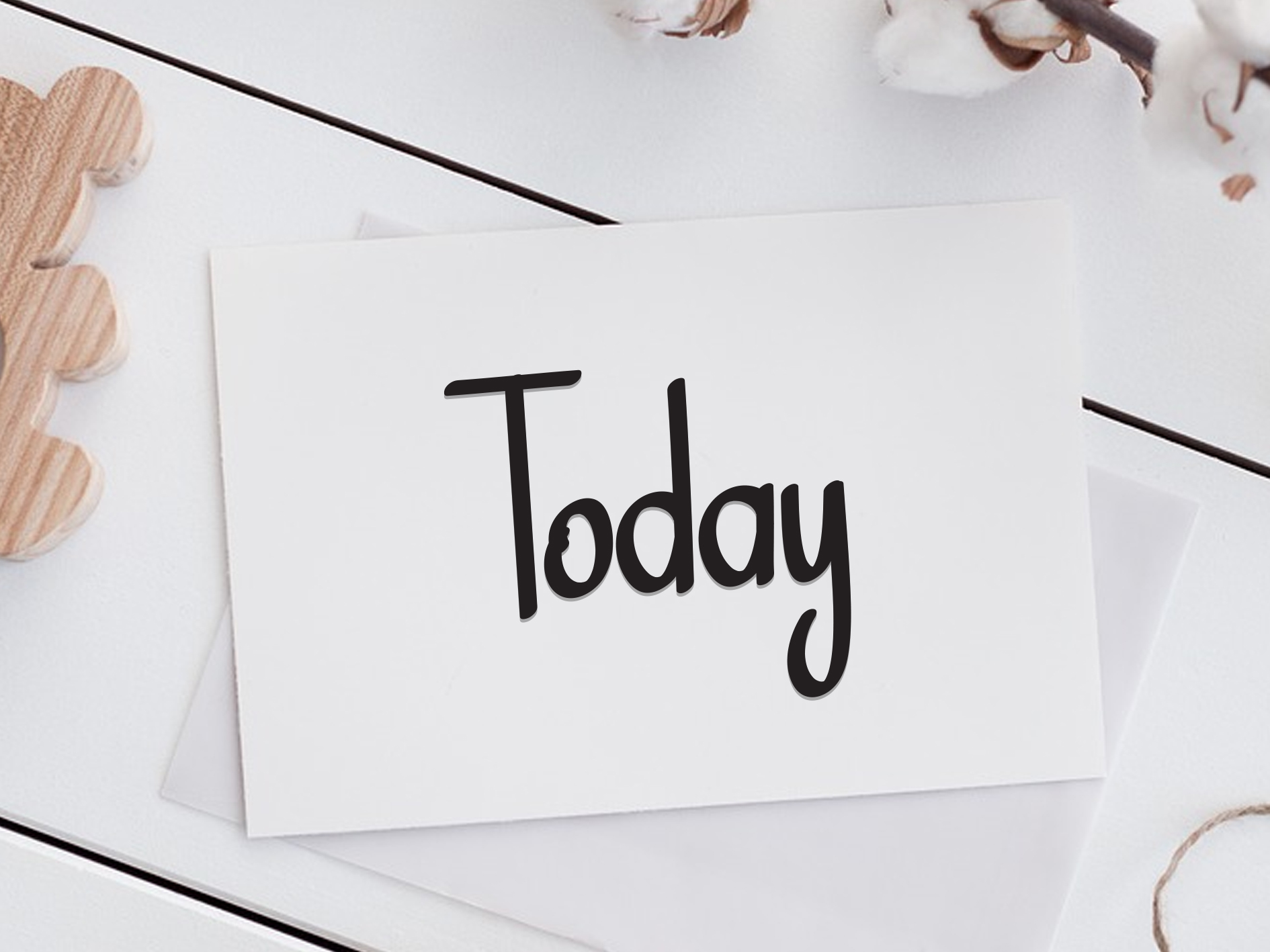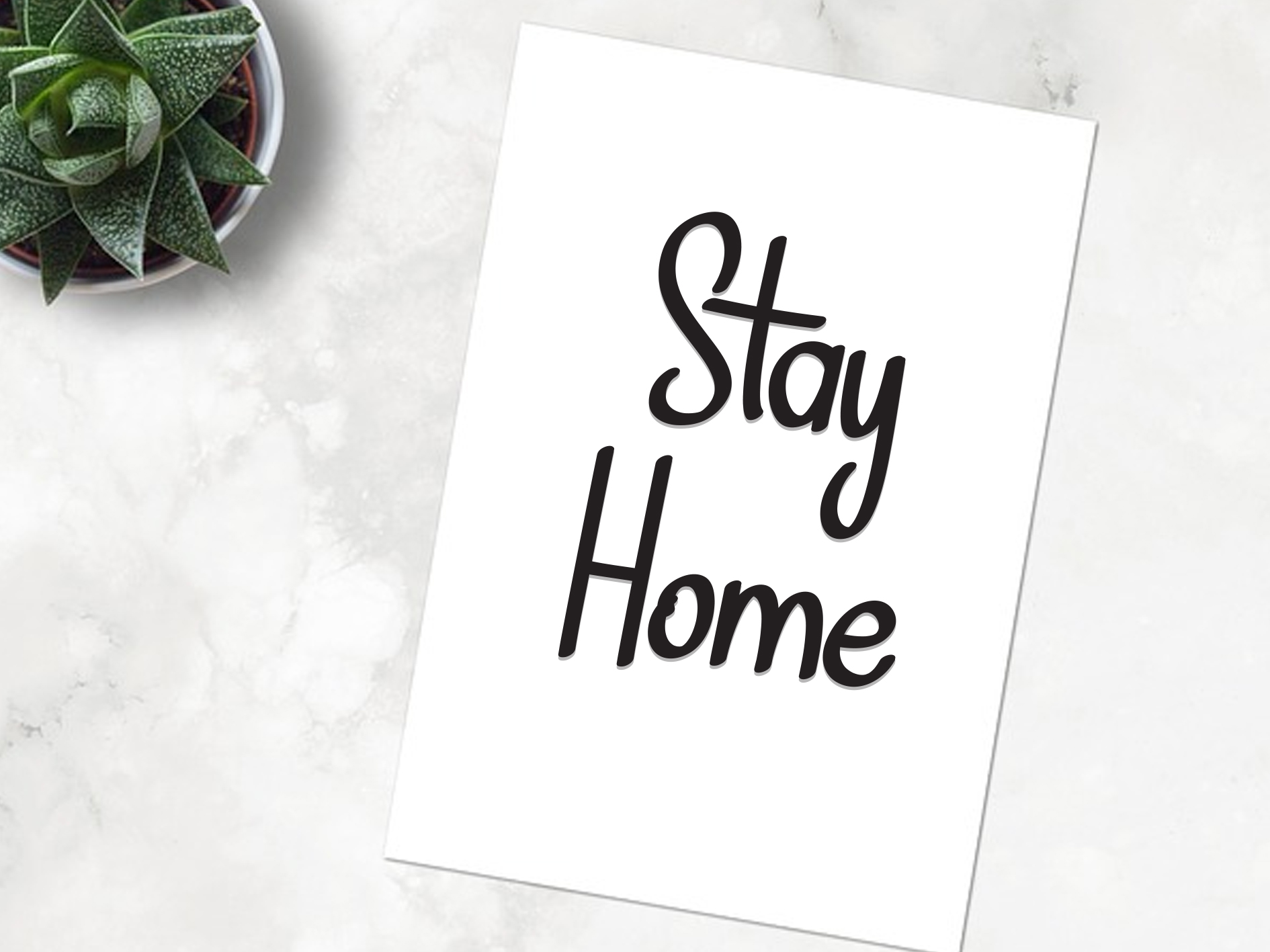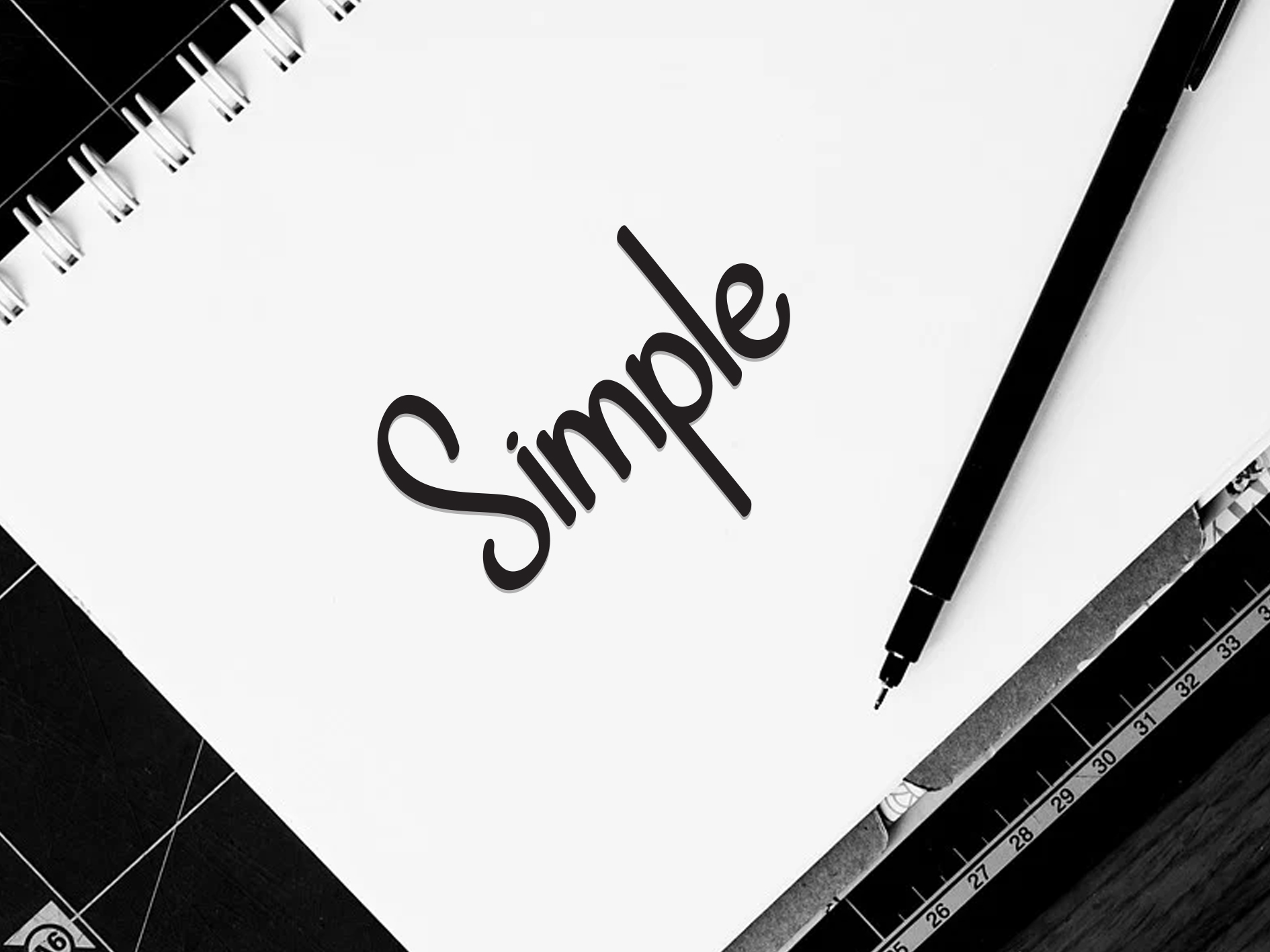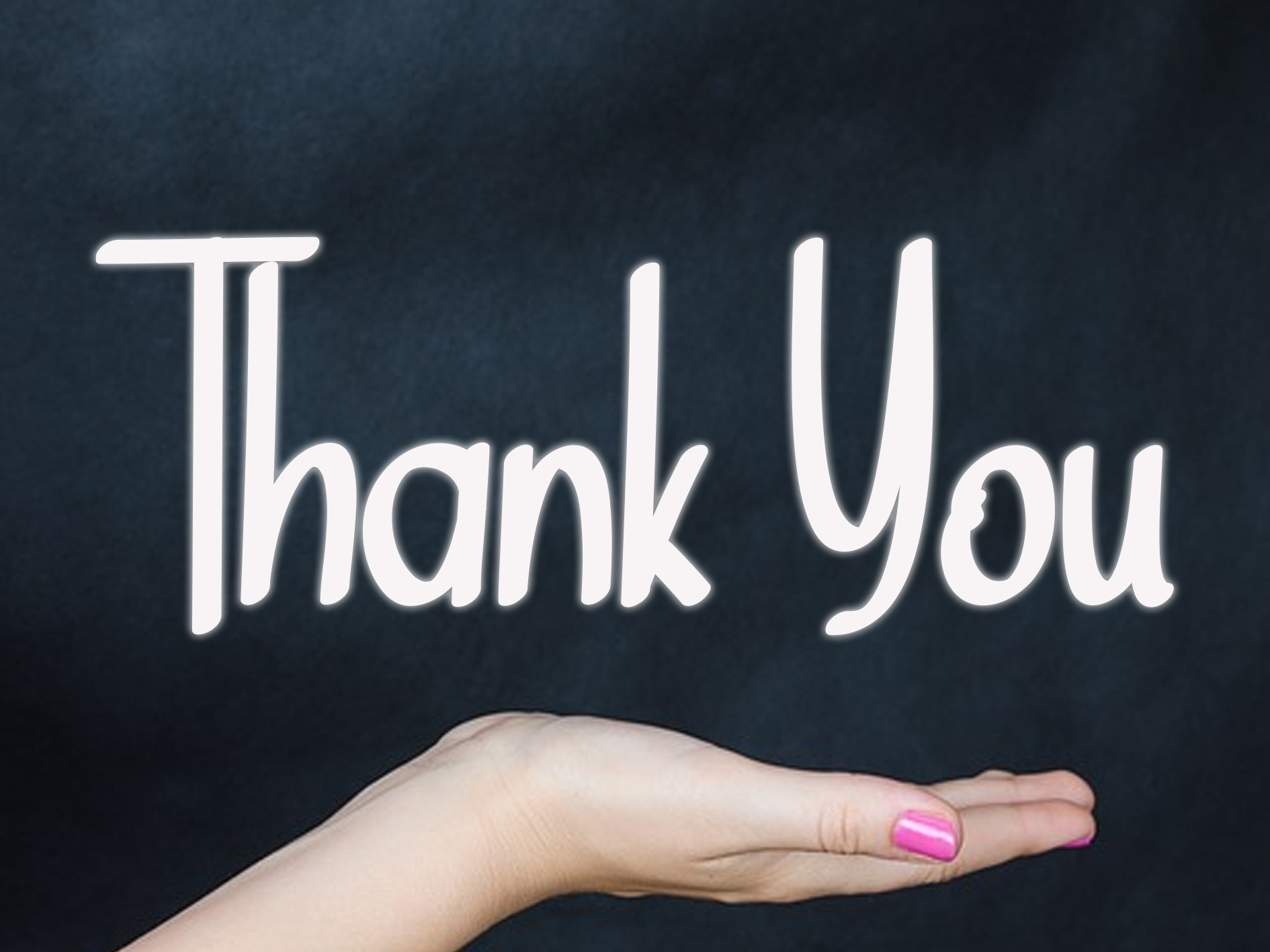
February Script Font
This is a delicate handwritten font that has a modern yet whimsical style. It will undoubtedly immerse your designs into a magical world.
This is a beautiful and unique handwritten font, with grooves crafted to produce beautiful lettering for use in a wide variety of products as desired. This product link; https://www.creativefabrica.com/product/february-17/ref/1679118/